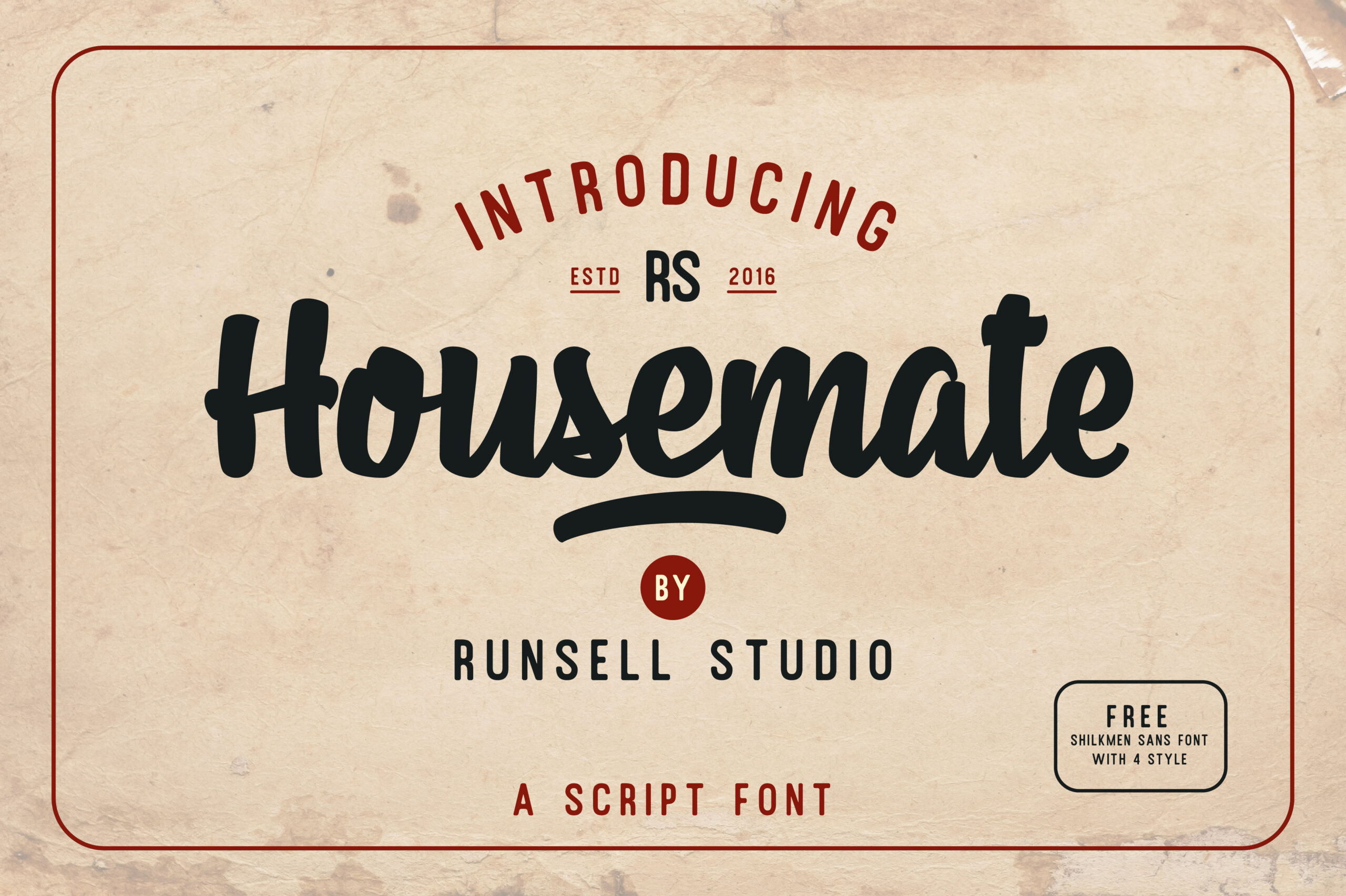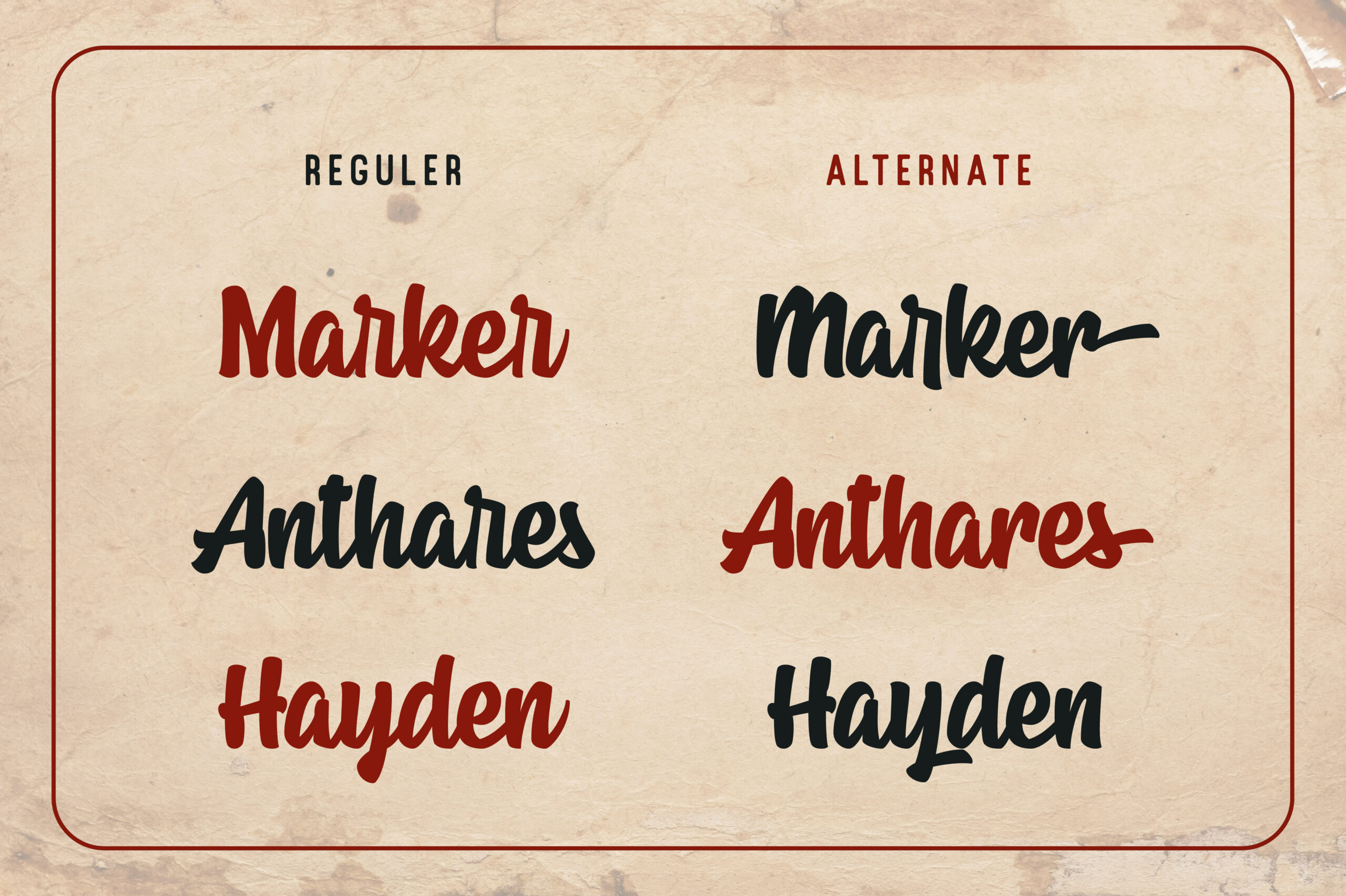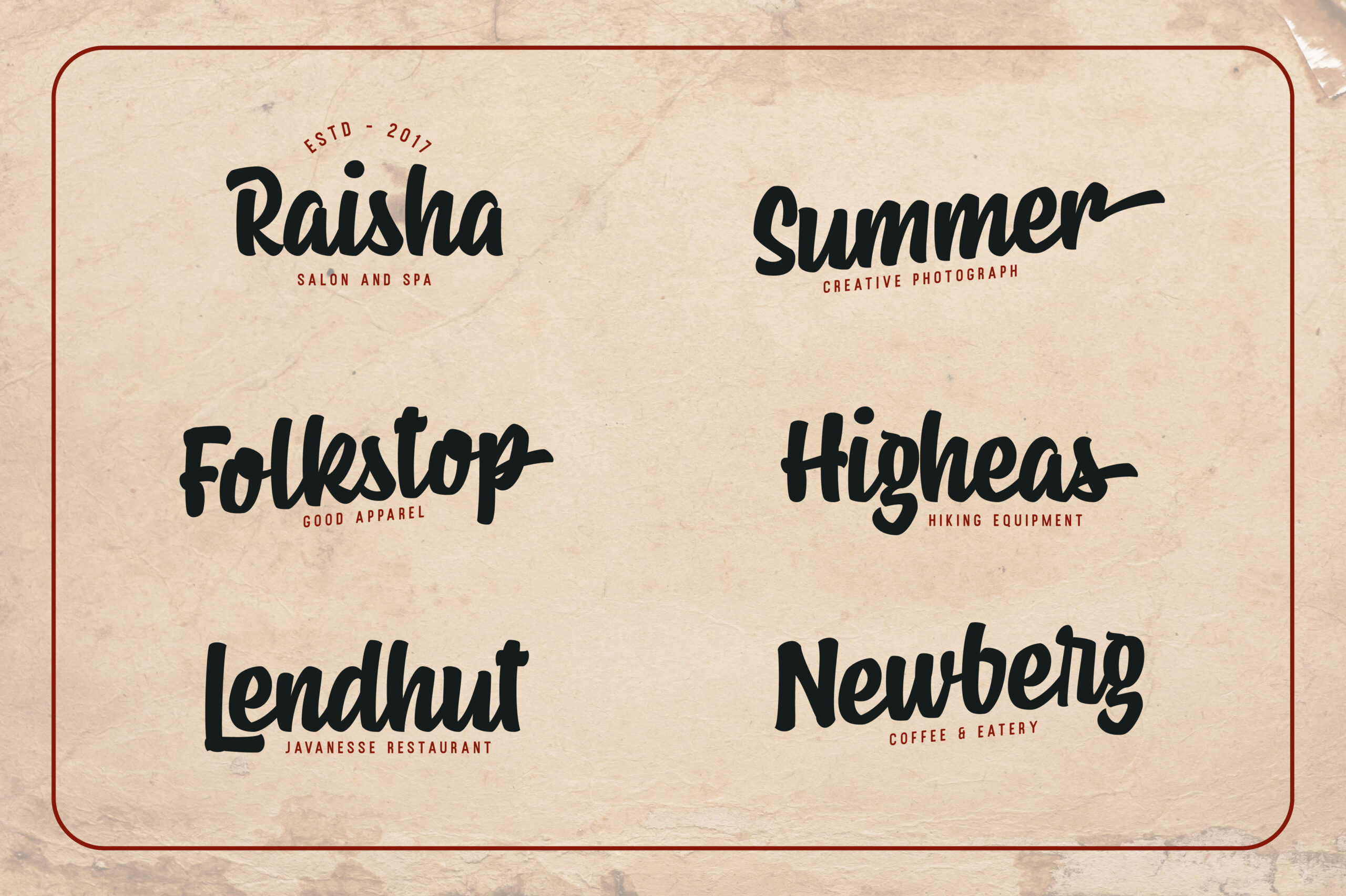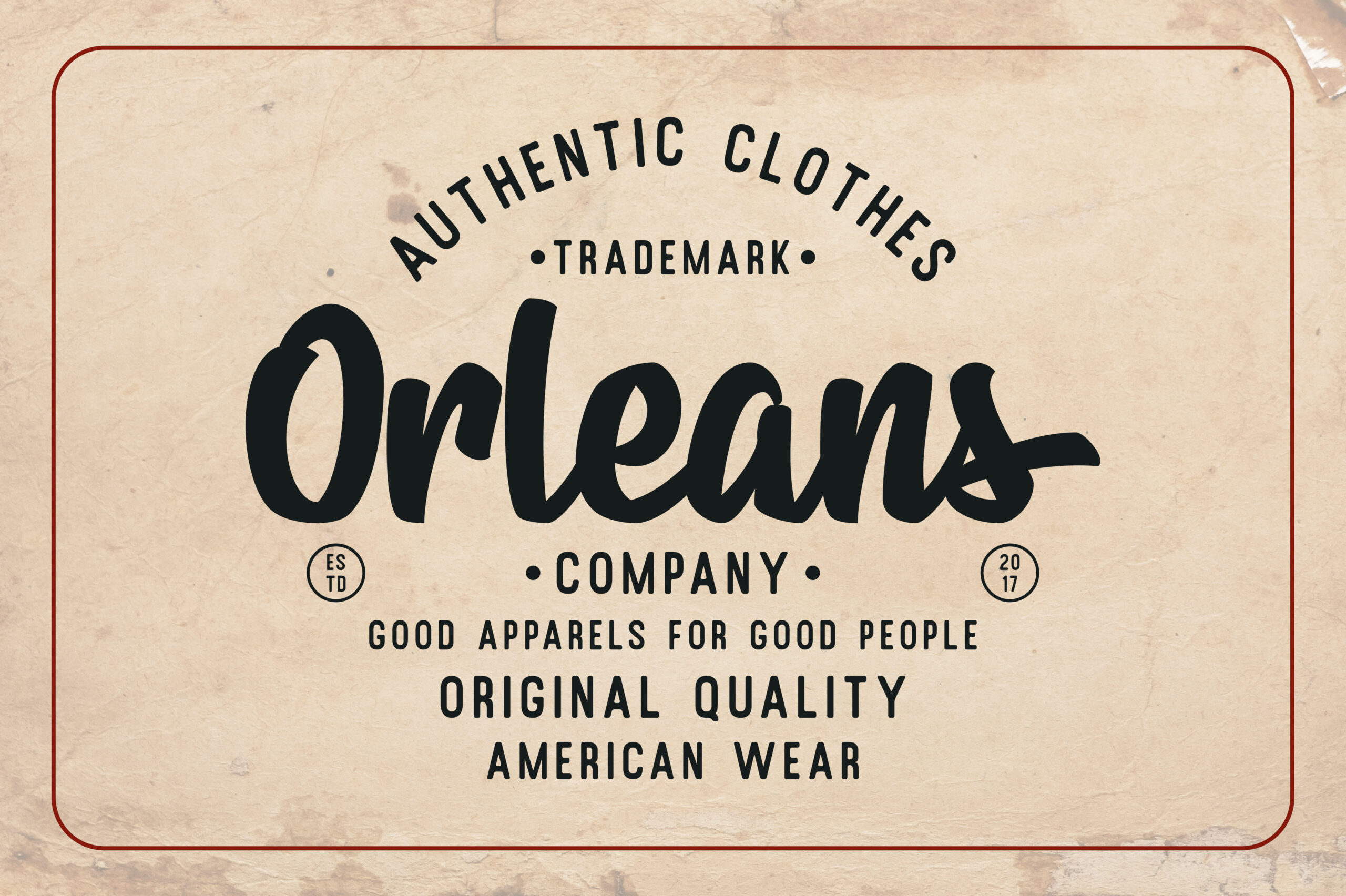
Housemate Font
About Housemate Font
Housemate is a vintage script font great for logotype, typography, poster, printed quotes, invitations, cards, product packaging, headers, letterhead, apparel design, label, and etc.
Housemate comes with uppercase, lowercase, numerals, punctuation, multilingual characters.
Features :
Stylistic Alternate
Swash Variant